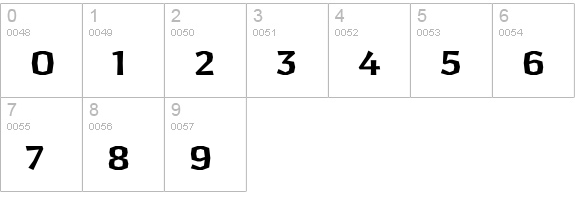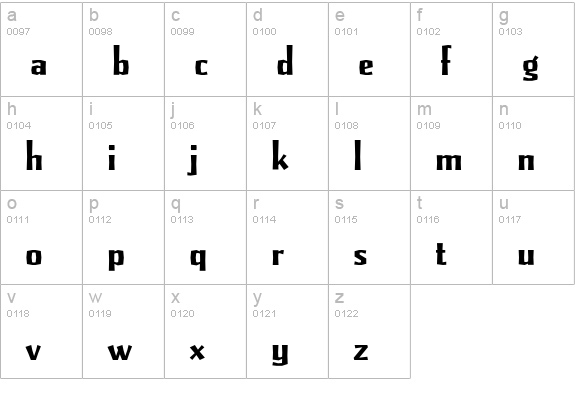
Pilsner-Bold Font Details
Pilsner-Bold is a strong, high-contrast variant in the Pilsner typeface family \xE2\x80\x94 well suited to headlines, attention-grabbing titles, and strong calls-to-action.
Pilsner-Bold is a modern and versatile font that exudes confidence and strength. Its bold and powerful design makes it perfect for headlines, titles, and branding projects that require a strong visual impact. With its clean and crisp lines, Pilsner-Bold stands out effortlessly, demanding attention and leaving a lasting impression. This font is not only visually appealing but also incredibly versatile. Whether you're designing a logo, creating a poster, or crafting a website, Pilsner-Bold will elevate your project to new heights. Its bold weight ensures legibility, even at smaller sizes, making it suitable for various applications. One of the best things about Pilsner-Bold is that it is freely available to download at FontsMarket.com. This means that you can easily access this exceptional font without any cost. The ability to download it for free allows you to explore its full potential and incorporate it into your creative projects without any limitations. Pilsner-Bold's timeless and classic design makes it suitable for a wide range of industries and styles. Whether you're working on a modern tech startup, a vintage-inspired brand, or a luxury fashion label, this font will effortlessly adapt to your needs. Its versatility ensures that it can complement any design aesthetic, adding a touch of sophistication and elegance to your work. The clean and sharp edges of Pilsner-Bold give it a contemporary and polished look, making it a standout choice for both print and digital projects. It is designed to leave a lasting impression, ensuring that your message is conveyed effectively and memorably. In conclusion, Pilsner-Bold is a powerful and versatile font that is freely available to download at FontsMarket.com. Its bold and confident design, coupled with its versatility and legibility, makes it a valuable asset for any creative project. Whether you're a graphic designer, a web developer, or a branding specialist, Pilsner-Bold will help you make a bold statement and leave a lasting impact.